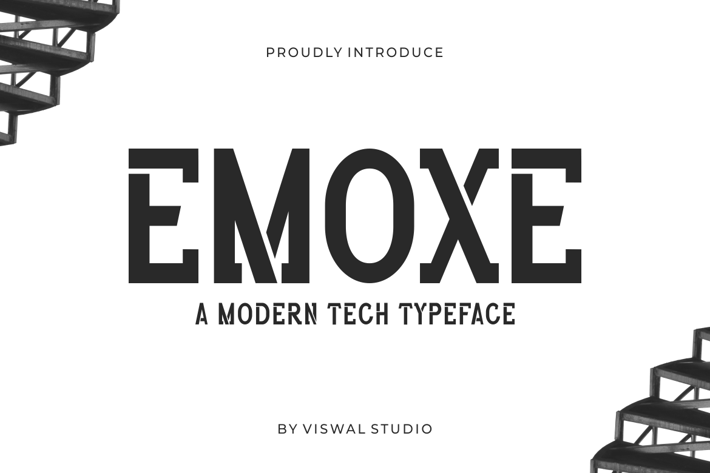
Emoxe - Modern Tech Font
Presenting Emoxe - Font is suitable for badge, labels, logo, branding, magazine, poster and etc. Our fonts have Uppercase & Lowercase, Numeral & Punctuation, Multilingual support and Opentype Features. For Amazing designs you can mix with other fonts as a complement.